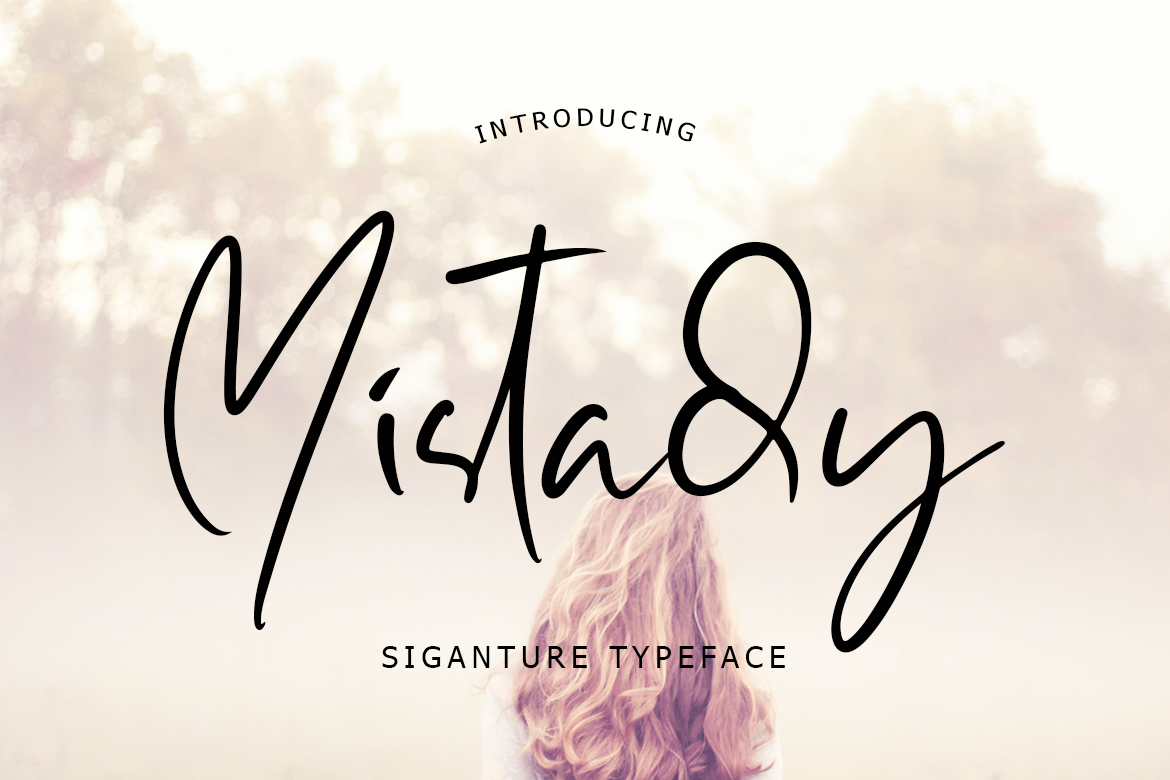
Mistady Signature Font
Mistady is a signature script that can easily make your text look elegant, luxurious, and modern! This timeless handwritten font can be used for various purposes such as logos, wedding invitations, t-shirts, letterheads, labels, and much more!